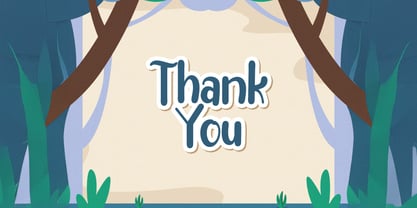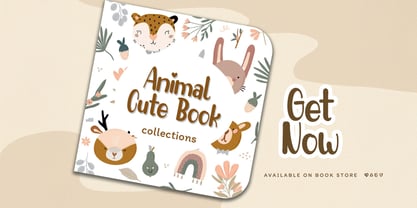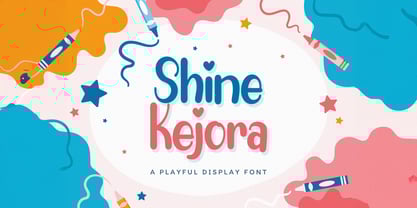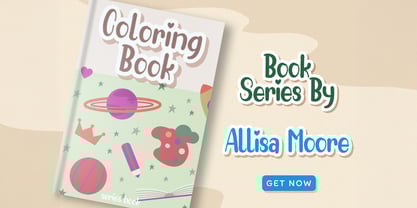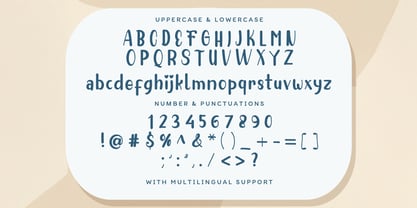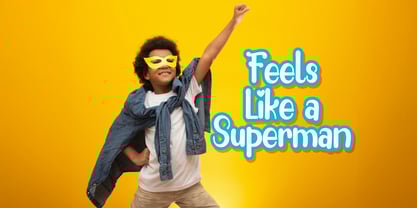
Shine Kejora
by Stringlabs Creative Studio
The Shine Kejora Font Family was designed by Virgiawan Listanto and published by Stringlabs Creative Studio. Shine Kejora contains 1 styles. More about this family
Shine Kejora is a vibrant and playful display font designed to add a touch of fun and personality to any project. With its bold curves, quirky letterforms, and lively character, Shine Kejora is perfect for eye-catching headlines, creative branding, and anything that requires a dash of whimsy. This font radiates energy and joy, making it an ideal choice for projects that need a cheerful and modern look.
Designers: Virgiawan Listanto
Foundry: Stringlabs Creative Studio